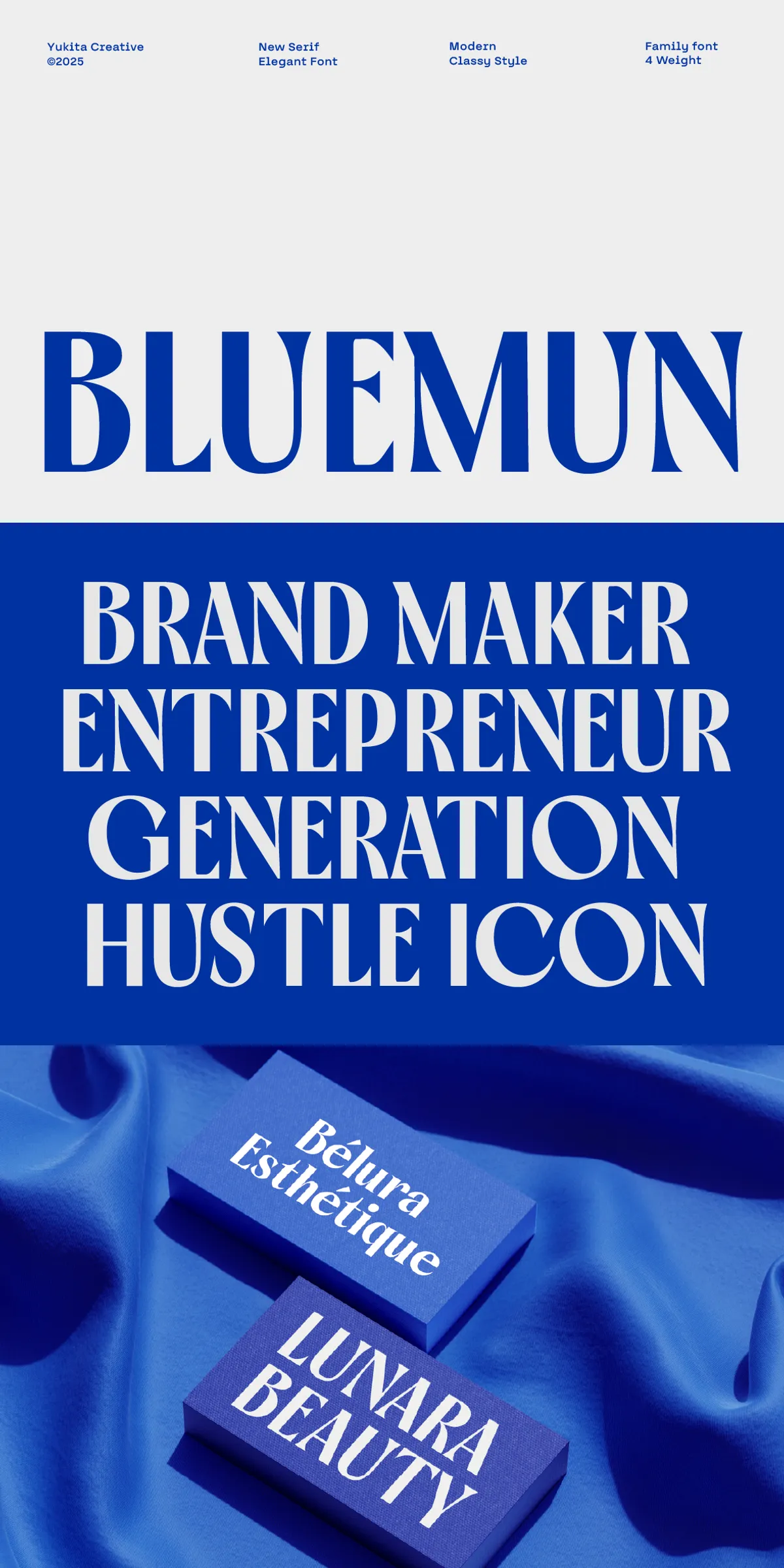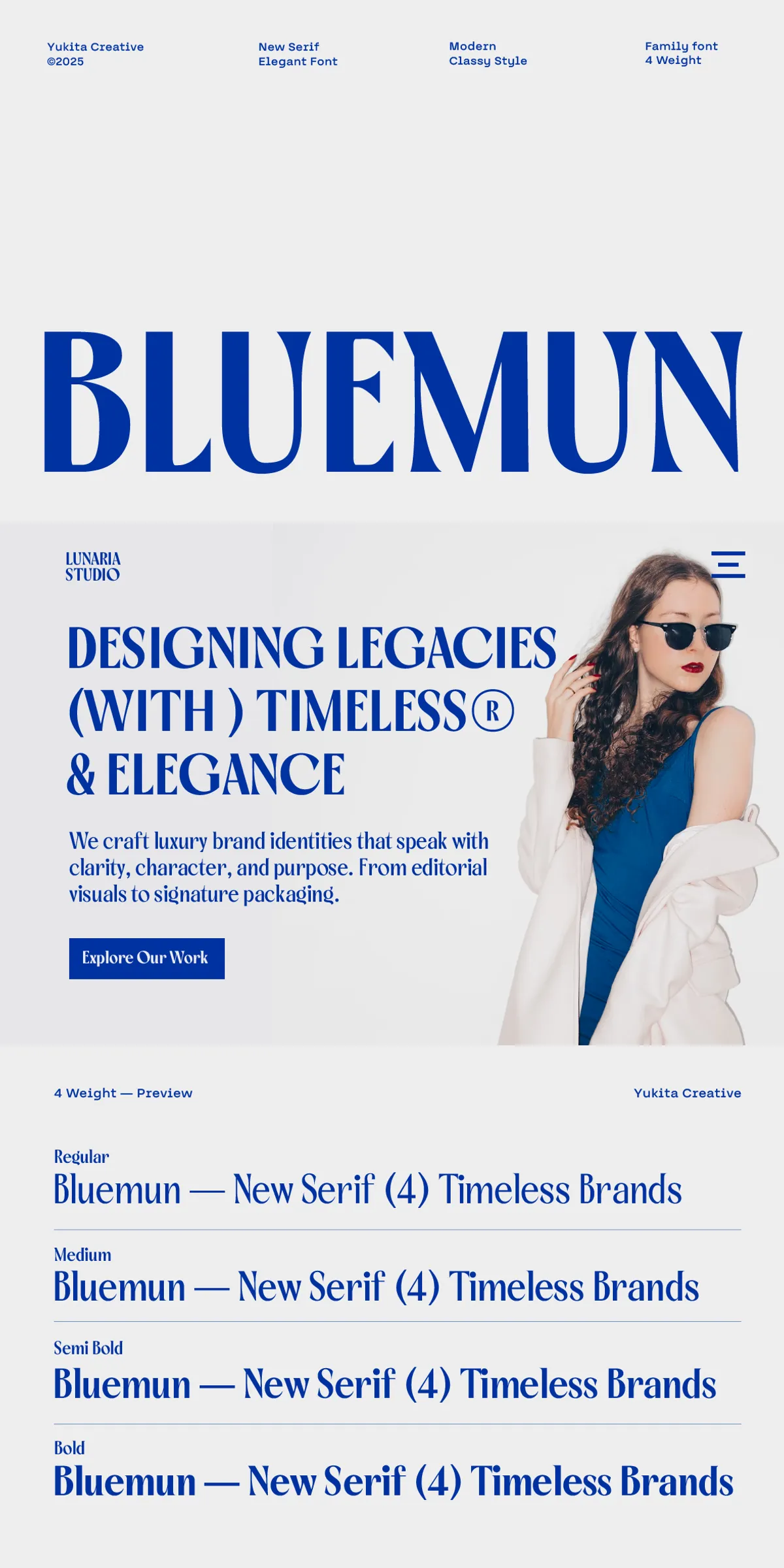
Transform your creative projects with Bluemun Serif — a meticulously crafted serif typeface that effortlessly unites minimalist grace with enduring sophistication. Designed for discerning designers who value both aesthetic purity and functional precision, Bluemun Serif delivers a visual language that feels effortlessly polished, whether in bold headlines or elegant body copy. Its clean, uncluttered lines and fluid, organic curves create a sense of calm authority — a perfect balance between restraint and beauty.
Four Powerful Weights, Infinite Design Possibilities
Bluemun Serif isn’t just a single font — it’s a full family, available in four distinct weights: Regular, Medium, SemiBold, and Bold. Each weight is engineered to serve different typographic roles with consistency and impact.
- Regular — For refined body text, editorial design, and subtle emphasis where elegance speaks louder than volume.
- Medium — Ideal for section headers and subheadings that demand clarity without overpowering.
- SemiBold — Perfect for attention-grabbing headlines, brand messages, and digital hero sections.
- Bold — Deliver maximum presence in logos, packaging, and high-impact visual content.
This versatility ensures that Bluemun Serif adapts fluidly across all design touchpoints — from delicate stationery to bold print campaigns.
Designed for Clarity, Built for Real-World Use
Bluemun Serif was optimized for peak readability without sacrificing style. Its open letterforms, consistent x-height, and carefully calibrated spacing ensure that text remains legible even at small sizes. Whether you’re designing a luxury magazine spread or a responsive website header, this font maintains its composure and readability in any context.
- Excellent for Display & Text — From magazine covers to product descriptions, Bluemun Serif performs with excellence in both roles.
- Web-Optimized — Lightweight and clean, this font loads quickly and renders crisply across devices — perfect for modern web design.
- Print-Ready Quality — High-resolution output ensures sharp performance in brochures, packaging, and fine art printing.
Built for a Global Audience: Full Multilingual Support
Redefining inclusivity in typography, Bluemun Serif supports a broad range of languages across Western, Central, and Eastern European regions. Whether you’re working in French, German, Polish, Russian, or Romanian, the font maintains its structural integrity and typographic elegance.
Perfect Applications for Every Creative Vision
Bluemun Serif is more than a typeface — it’s a design partner. Use it to elevate a wide range of projects with quiet confidence and timeless appeal.
- Branding & Logo Design — Create enduring identities that feel trustworthy, refined, and classically modern.
- Wedding & Lifestyle Invitations — Infuse your digital or printed invites with emotional warmth and polished refinement.
- Editorial & Publishing Projects — Ideal for magazines, journals, fashion editorials, and book covers.
- Website Headers & Hero Sections — Command attention with bold typography that reads well on all devices.
- Product Packaging & Label Design — Add a premium feel to cosmetics, beverages, food, and artisanal goods.
- Social Media Graphics — Design clean, classy visuals that stand out in crowded digital feeds.
Bring Quiet Power to Your Designs with Bluemun Serif
Great typography doesn’t shout — it speaks with intention. Bluemun Serif offers a subtle yet powerful visual narrative, adding depth, trust, and sophistication to every word it renders.